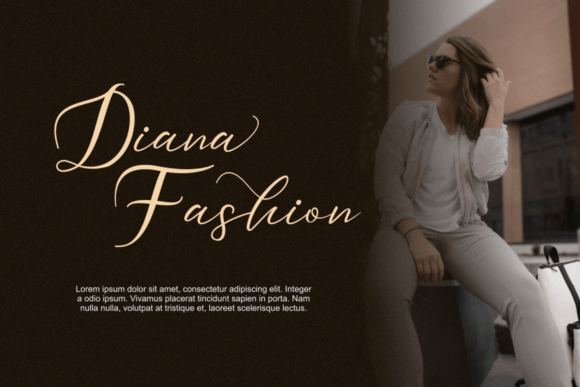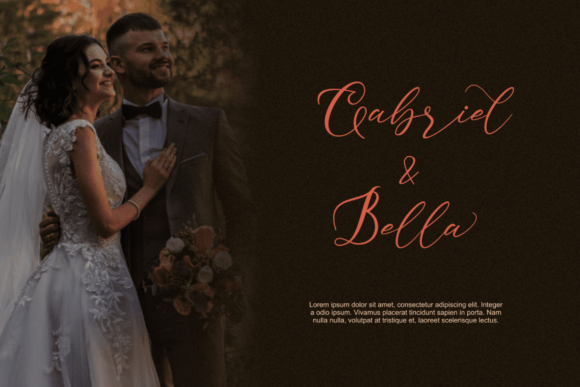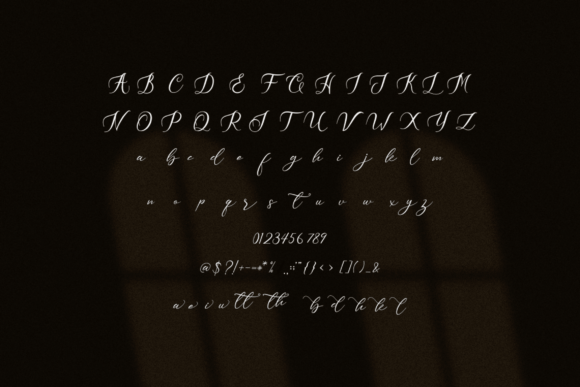
Gatigal Font: Elevate Your Designs with Elegance and Flair
In the world of typography, fonts play a crucial role in bringing creative ideas to life. Among the numerous fonts available, Gatigal stands out as a delicate, elegant, and flowing handwritten font that has captured the hearts of designers and crafters alike. In this article, we’ll dive into the features and benefits of Gatigal Font, exploring how it can elevate your designs and add a touch of sophistication to your projects.
The Beauty of Gatigal Font
Gatigal Font boasts beautiful and well-balanced characters that make it an excellent choice for a wide range of designs. Its elegant and flowing script is perfect for creating visually appealing text that resonates with your audience. Whether you’re working on a logo, branding materials, or digital products, Gatigal Font is sure to make your designs come alive.
PUA Encoding: Easy Access to Glyphs and Ligatures
One of the standout features of Gatigal Font is its PUA (Private Use Area) encoding. This means that you can easily access all the amazing glyphs and ligatures without any hassle. With PUA encoding, you can unlock the full potential of Gatigal Font and experiment with various typography combinations to create unique and captivating designs.
Gatigal Font’s versatility is another reason why it’s a favorite among designers and crafters. Its delicate and elegant script makes it suitable for a wide pool of designs, from:
- Digital products and e-commerce
- Stationery and invitations
- Packaging and labels
Whether you’re working on a personal project or a client’s brief, Gatigal Font is an excellent choice for adding a touch of elegance and sophistication.
So, what makes Gatigal Font an attractive option for designers and crafters? Here are just a few benefits:
- High-quality design: Gatigal Font features high-quality, well-designed characters that will elevate your designs.
- Flexibility: With PUA encoding, you can experiment with various typography combinations to create unique designs.
- Time-saving: Gatigal Font’s pre-designed glyphs and ligatures save you time and effort in creating custom typography.
Tips for Using Gatigal Font
To get the most out of Gatigal Font, here are some tips:
- Experiment with font sizes: Gatigal Font looks great in various font sizes, from small captions to large headings.
- Pair with complementary fonts: Combine Gatigal Font with complementary fonts to create visually appealing typography combinations.
- Play with glyphs and ligatures: Use Gatigal Font’s PUA encoding to access a wide range of glyphs and ligatures and add personality to your designs.
In conclusion, Gatigal Font is an exquisite handwritten font that offers elegance, versatility, and ease of use. Its beautiful and well-balanced characters, combined with PUA encoding, make it an excellent choice for designers and crafters looking to elevate their designs. Whether you’re working on a personal project or a client’s brief, Gatigal Font is sure to bring your creative ideas to life.